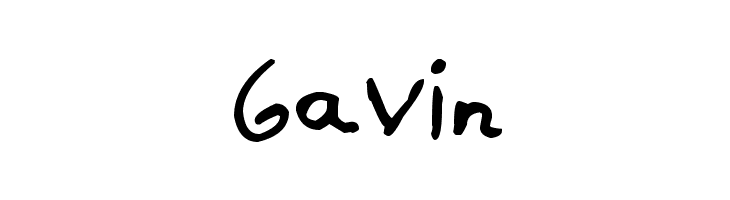
A playful, handwritten font with tall, narrow letters and a casual style.
A playful, handwritten font with bold, rounded characters.
A casual, handwritten font with smooth curves and consistent stroke width.
A playful, handwritten-style font with rounded, casual characters.
A bold, rounded font with a playful and informal style.
A playful, handwritten font with smooth, rounded characters and a casual feel.